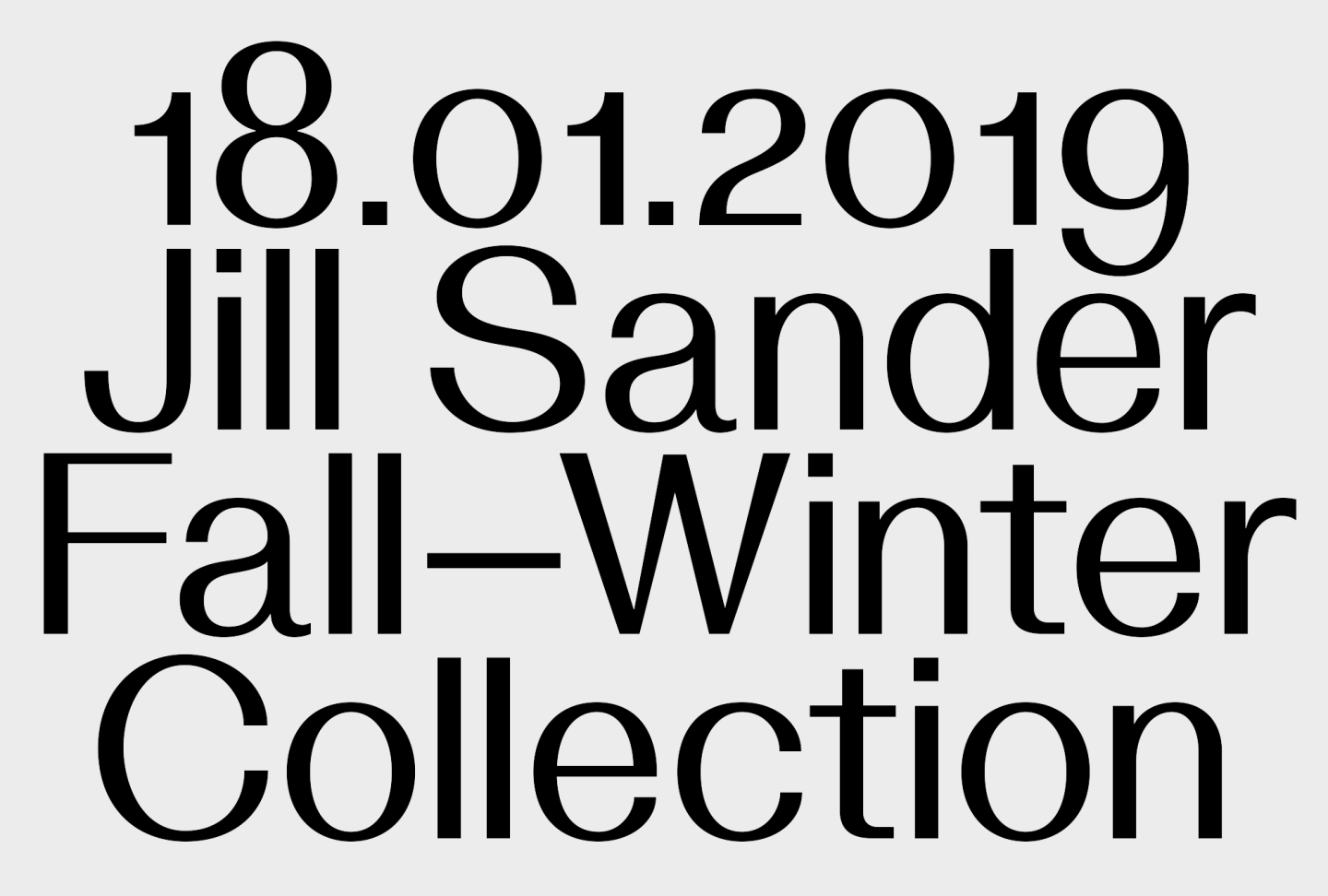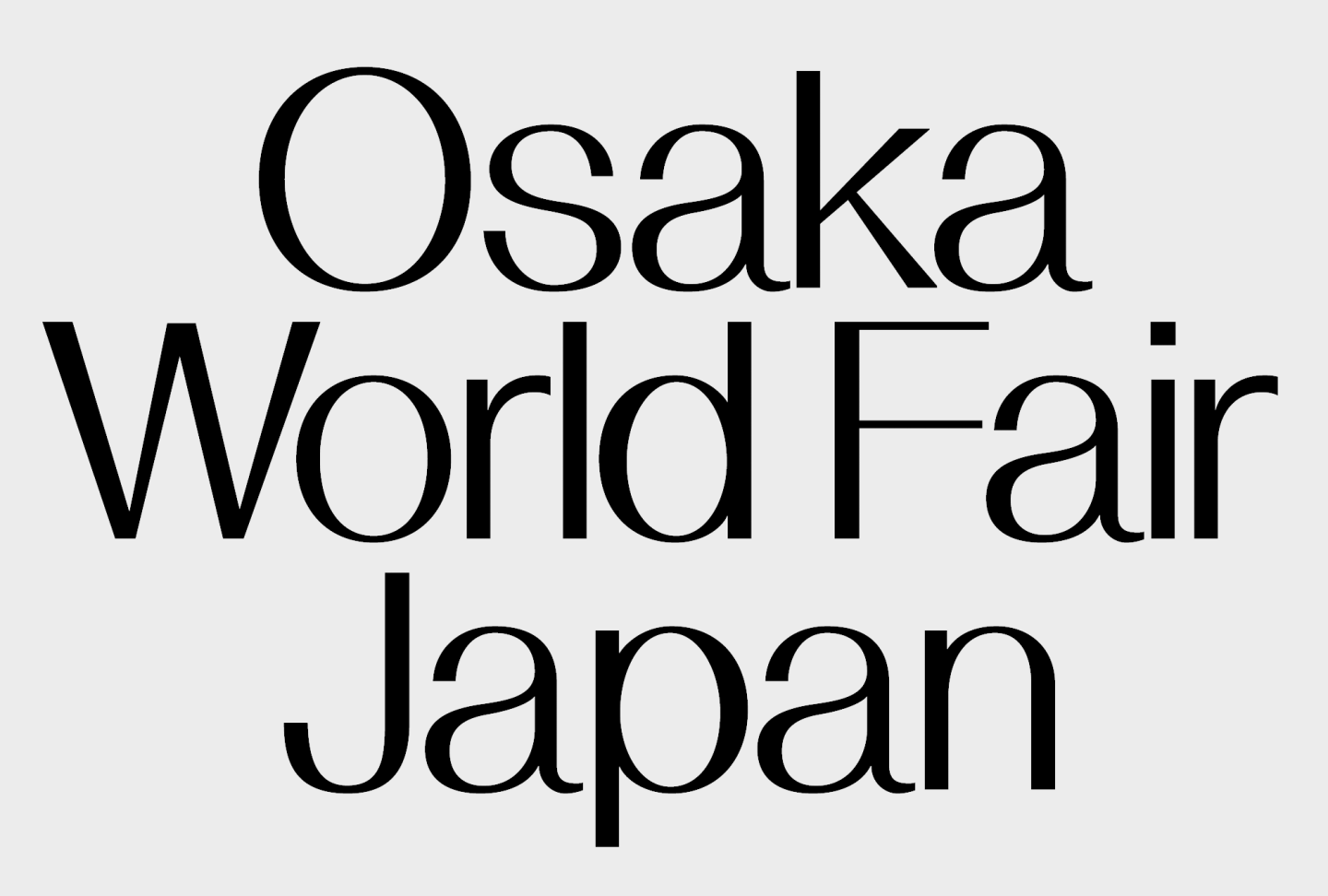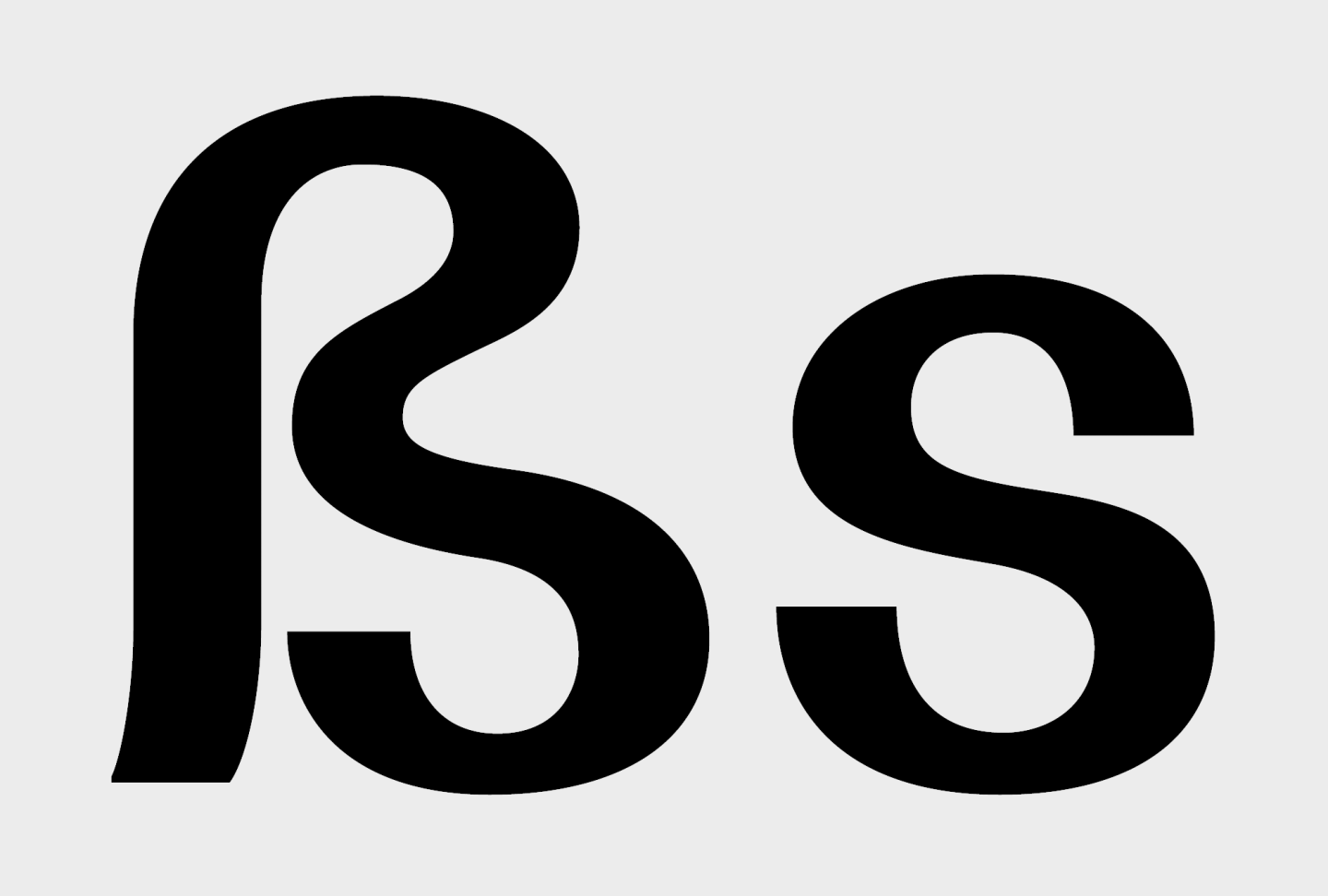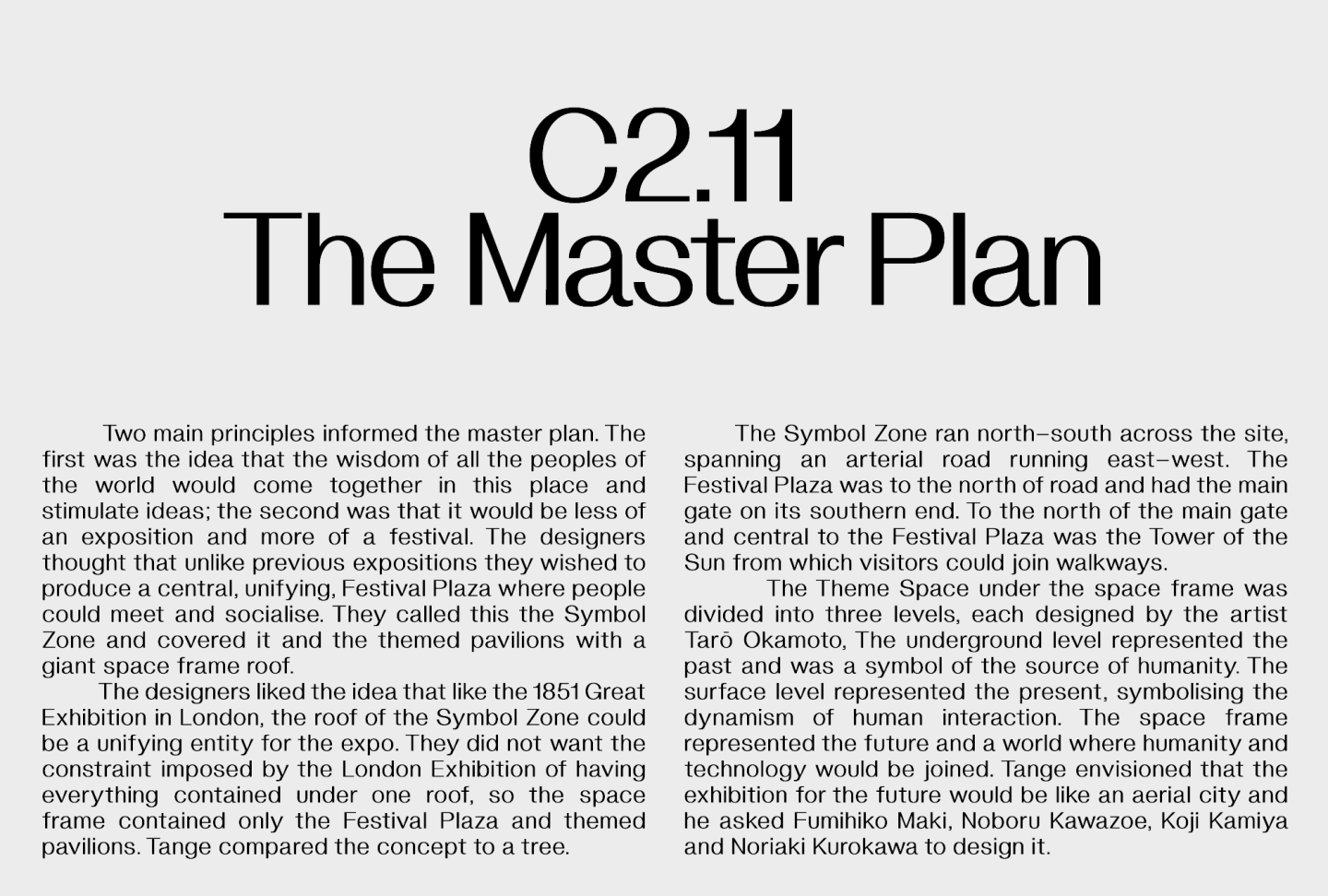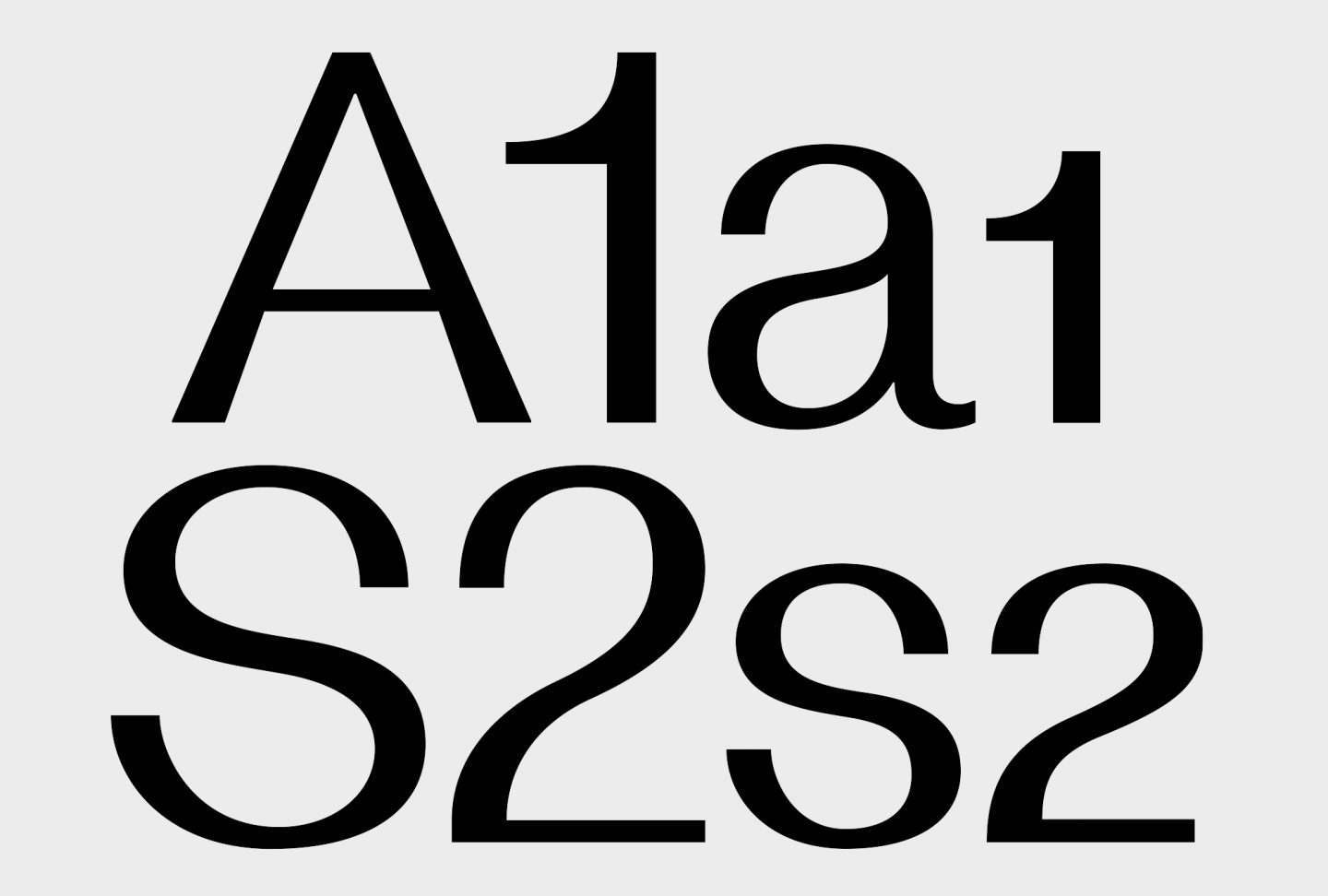
Solaris is a high contrast neo-grotesk typeface with a sleek and sophisticated look in large sizes, remaining neutral and legible in small sizes. The emphasized contrast in the character is fixed on the centre, creating a consistent rhythm of shapes in sentences.
Designer Mark Niemeijer